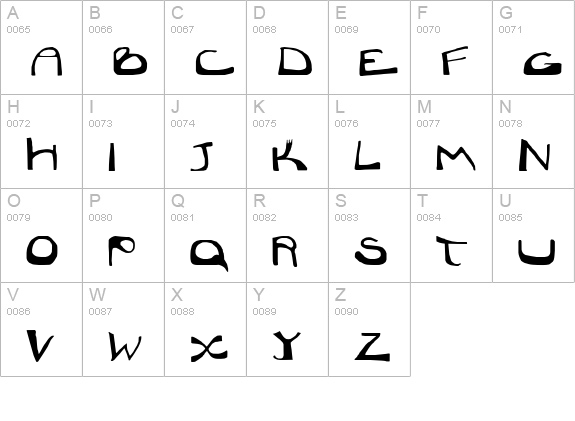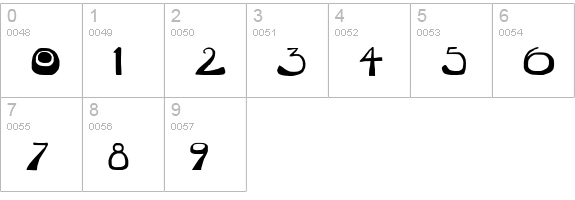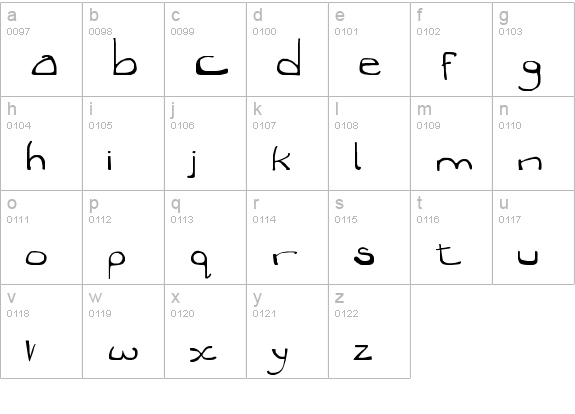
Scurville Font Details
Introducing Scurville, a captivating and versatile font that will add a touch of whimsy to any design project. With its playful curves and unique letterforms, Scurville is perfect for bringing a sense of fun and excitement to logos, branding, posters, and more. But what sets Scurville apart is not just its charming aesthetic, it's also the fact that it is completely free! That's right, this incredible font is freely available for download at FontsMarket.com. So whether you're a professional designer looking to add a touch of creativity to your latest project, or a hobbyist looking to experiment with different fonts, Scurville is the perfect choice. Designed with utmost precision and attention to detail, Scurville offers a wide range of characters and ligatures to ensure that every word you type looks absolutely stunning. Its legibility makes it ideal for both small and large sizes, ensuring that your message is always clear and impactful. Scurville's versatility extends beyond just its design applications. Whether you're working on a website, a social media post, or even a greeting card, this font will effortlessly adapt to your needs. Its unique personality will bring a smile to your audience's face, creating a memorable and engaging experience. So why wait? Download Scurville today and let your creativity soar. With this exceptional font at your fingertips, the possibilities are endless. Remember, it's free to download at FontsMarket.com, so don't miss out on this incredible opportunity to enhance your designs with the magic of Scurville.